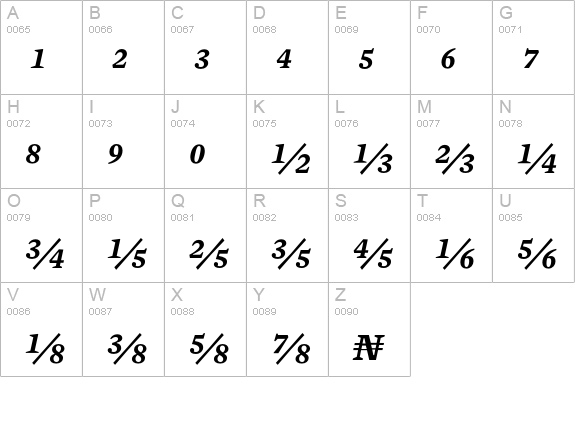
Mercury Numeric G4 Semi Italic is a distinctive, italic variant in the Mercury typeface family \xE2\x80\x94 well suited to design and typography projects.
Mercury Numeric G4 Semi Italic font is a sleek and modern typeface that exudes sophistication and elegance. Its semi italic style adds a touch of flair to any design project, making it perfect for use in branding, advertising, and editorial design. The clean lines and sharp angles of this font give it a contemporary look that is sure to make your text stand out. What's even better is that this font is available for free download at FontsMarket.com. So whether you're a designer looking to enhance your projects or a business owner in need of a stylish font for your marketing materials, Mercury Numeric G4 Semi Italic is a fantastic choice. Don't miss out on the opportunity to elevate your designs with this stunning typeface that is both professional and eye-catching. Download it for free today and start creating beautiful typography that commands attention.